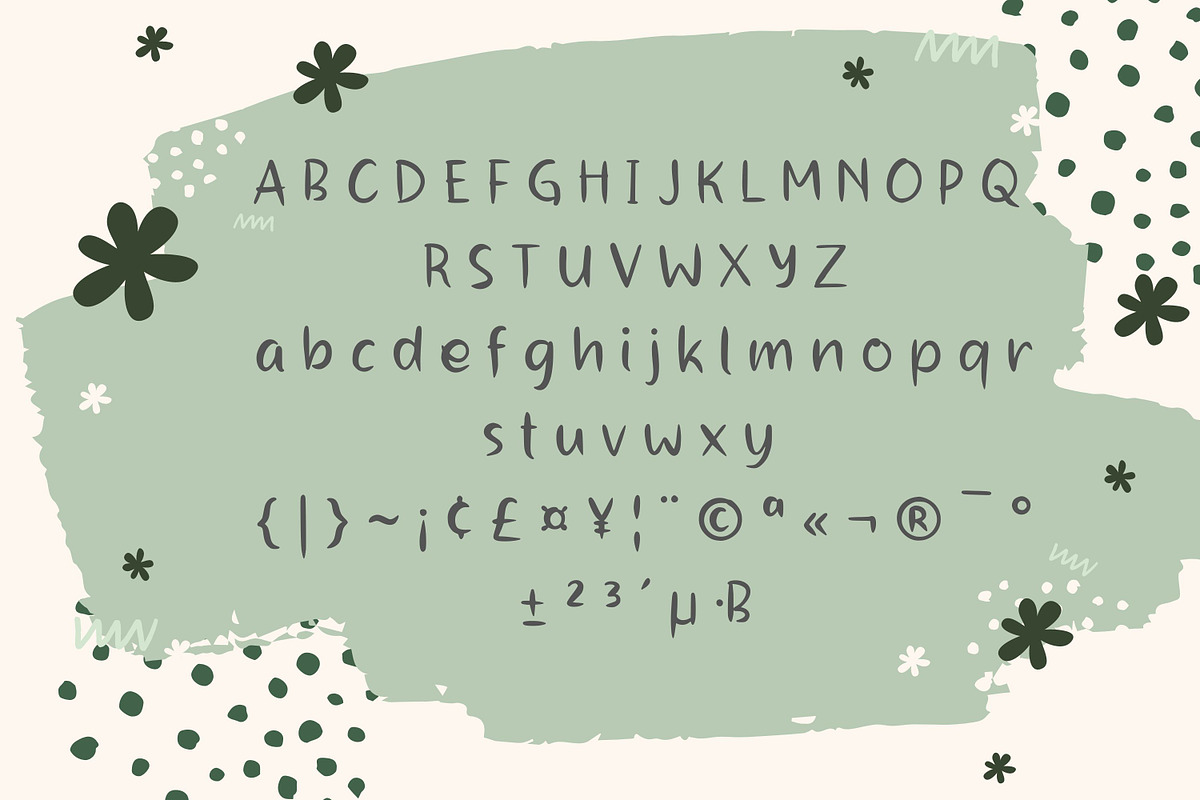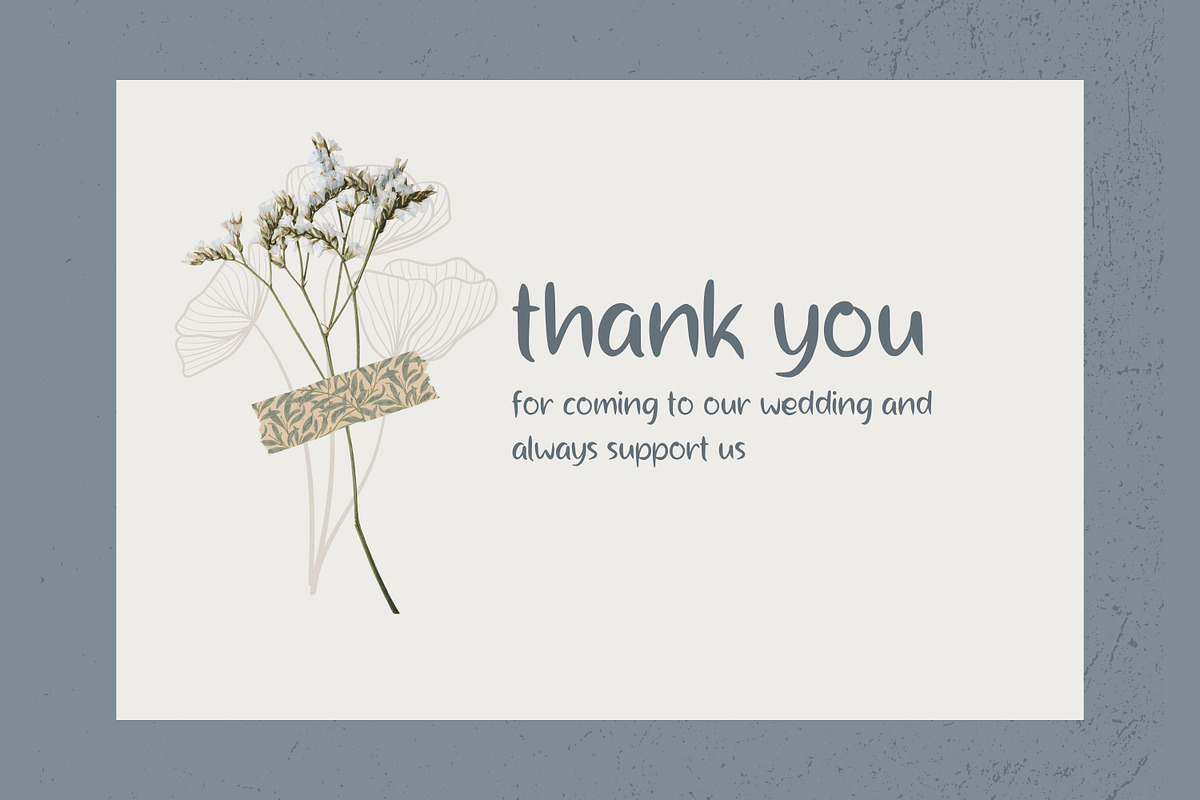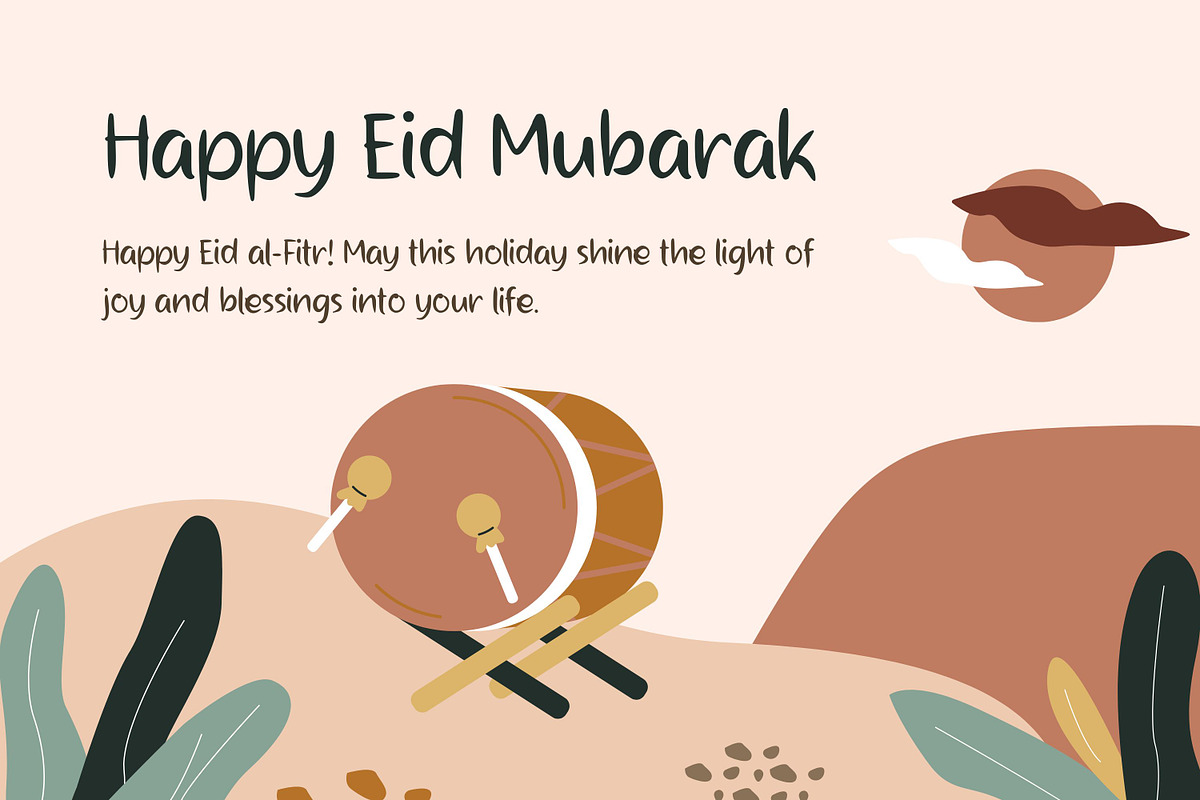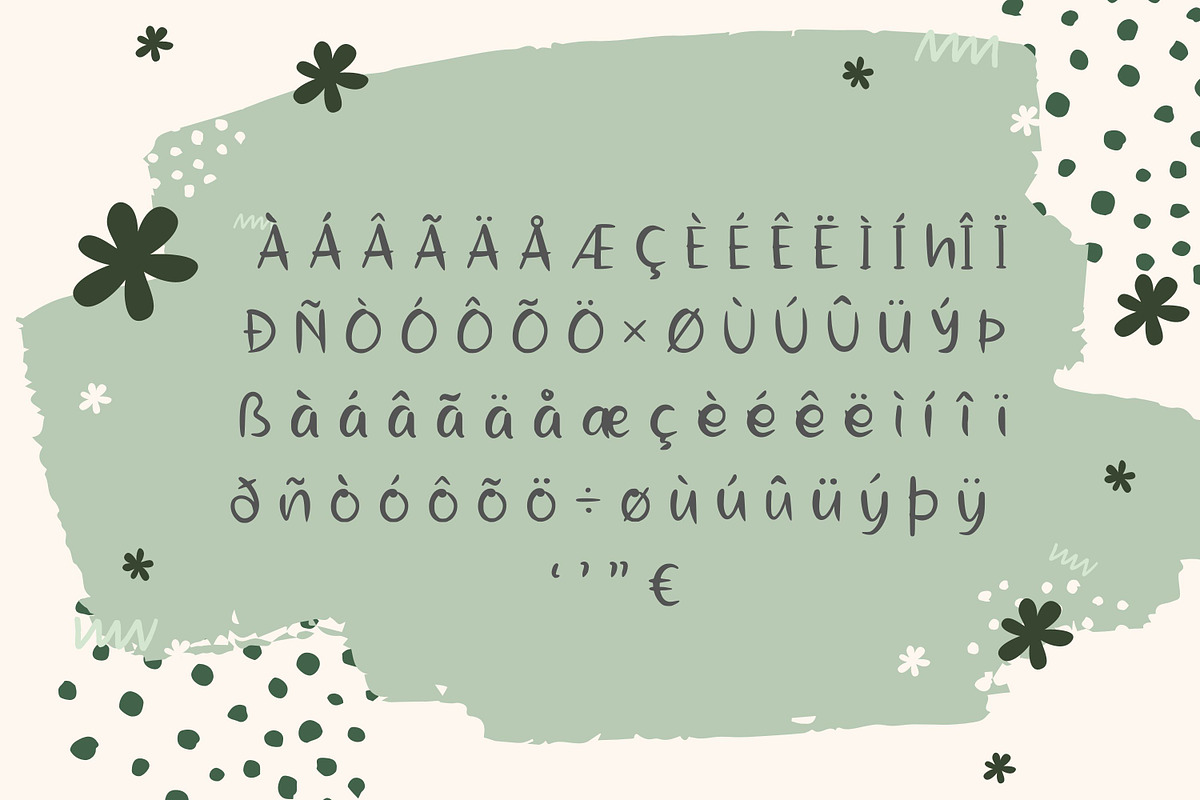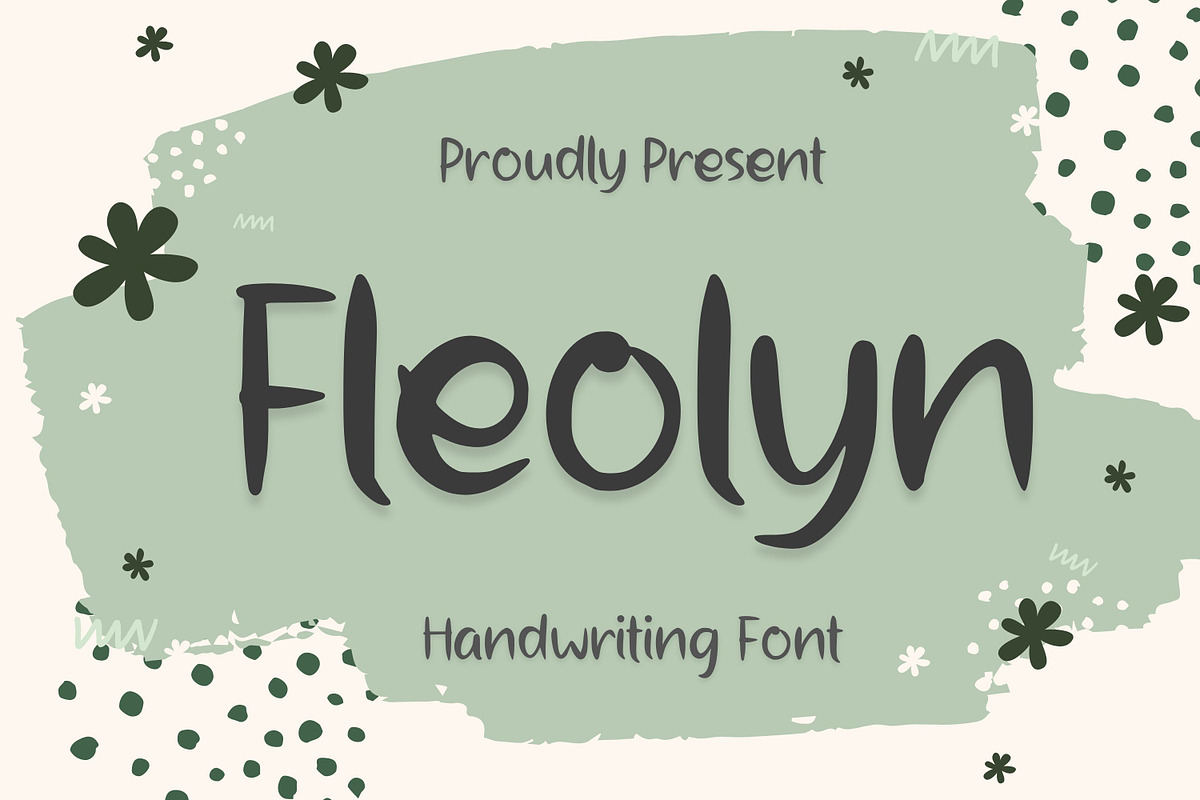
Fleolyn
Fleolyn is a clean and dainty handwritten font. It is the best choice for creating eye catching logos, branding and quotes. Every letter has a unique and beautiful touch, which will make your design come alive!